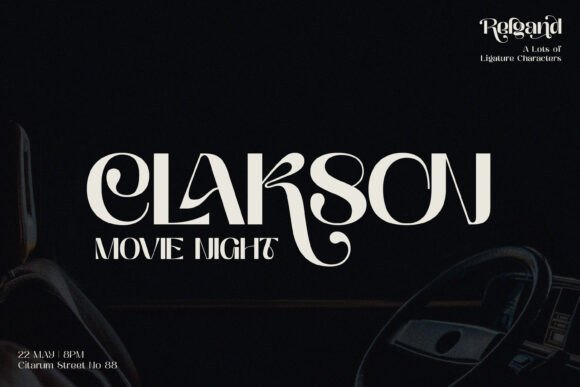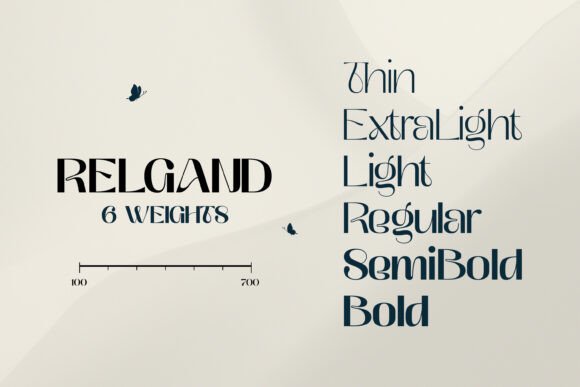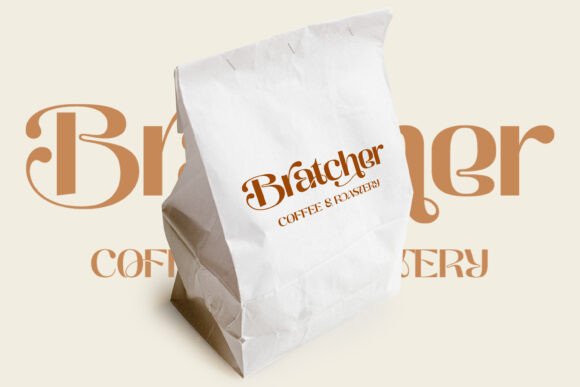
Introduction to Relgand Font
Have you ever stared at a blank canvas, feeling the pressure to create something truly remarkable? It’s a moment every designer knows all too well. But what if you had the perfect tool to elevate your designs to new heights? Enter Relgand Font, a meticulously crafted display font designed to leave a lasting impression.
This versatile typeface is the ultimate creative companion for designers, offering a wide range of customization options that will make your projects truly stand out. With its extensive set of alternative characters and ligatures, you’ll be able to effortlessly create captivating typography that’s perfect for logos, branding materials, posters, or social media graphics.
Whether you’re working on a high-quality design project or simply need a reliable design resource, Relgand Font is an invaluable asset that’s sure to take your creative endeavors to the next level. And the best part? With a transparent background, you can easily integrate it into your designs without any hassle. So why wait? Download Relgand Font now and start creating something truly remarkable.
Key Features of Relgand Font
- Unique, elegant script font with a transparent background, ideal for adding a touch of sophistication to designs.
- Designed with a focus on readability and aesthetics, making it perfect for use in logos, typography, and other design elements.
- Features a large character set, including uppercase and lowercase letters, numbers, and punctuation marks, ensuring versatility in creative projects.
- High-resolution design, suitable for use in various sizes and resolutions, from small text to large headlines.
- Perfect for designers seeking a high-quality, free design resource to enhance their creative projects and designs.
Honest Review: Relgand Font
As a designer, I’ve worked with numerous fonts for various creative projects, and I must say that the Relgand Font is quite impressive. Its high quality and versatility make it a valuable design resource.
One of the standout features of the Relgand Font is its elegant design, which works well for both body text and headings. The font’s transparent background makes it easy to use with any background image or color scheme.
Here are some of the things that work well about the Relgand Font:
- ✨ Elegant design that’s perfect for creative projects
- ✨ High quality that ensures crisp and clear text
- ✨ Transparent background for seamless integration
However, I do have a few concerns about the Relgand Font:
- ⚠️ Limited character set, which may not be suitable for extensive typing
- ⚠️ Not ideal for use in small font sizes
Overall, I’m impressed with the Relgand Font, and I would definitely consider it for my future design projects. The free download option is also a bonus, making it a valuable resource for designers on a budget.
Tips for Getting the Most Out of Relgand Font
For a high-quality design, use the Relgand Font on a transparent background to give your creative project a professional touch.
You can also use this design resource for various projects, such as logos, brochures, and business cards.
The Relgand Font is suitable for various design projects, including:
– Business cards
– Logos
– Brochures
– Infographics
– Social media graphics
– And many more creative projects.
Alternatives to Relgand Font
The Great Vibes Font is a high-quality, elegant script font ideal for creative projects requiring a touch of sophistication. It features a transparent background, making it perfect for use on images or graphics. Great Vibes Font is a great alternative to Relgand Font when you need a more refined and classic look.
The Dancing Script Font is a beautiful, handwritten font that exudes a sense of elegance and charm. It’s perfect for design projects that require a high level of sophistication, such as wedding invitations or luxury branding. Compared to Relgand Font, Dancing Script Font has a more dynamic and expressive feel.
Yes, the Relgand Font includes a transparent background option, allowing you to easily use it over various backgrounds and images. This feature is particularly useful for graphic designers and digital artists working on creative projects that require high-quality typography.